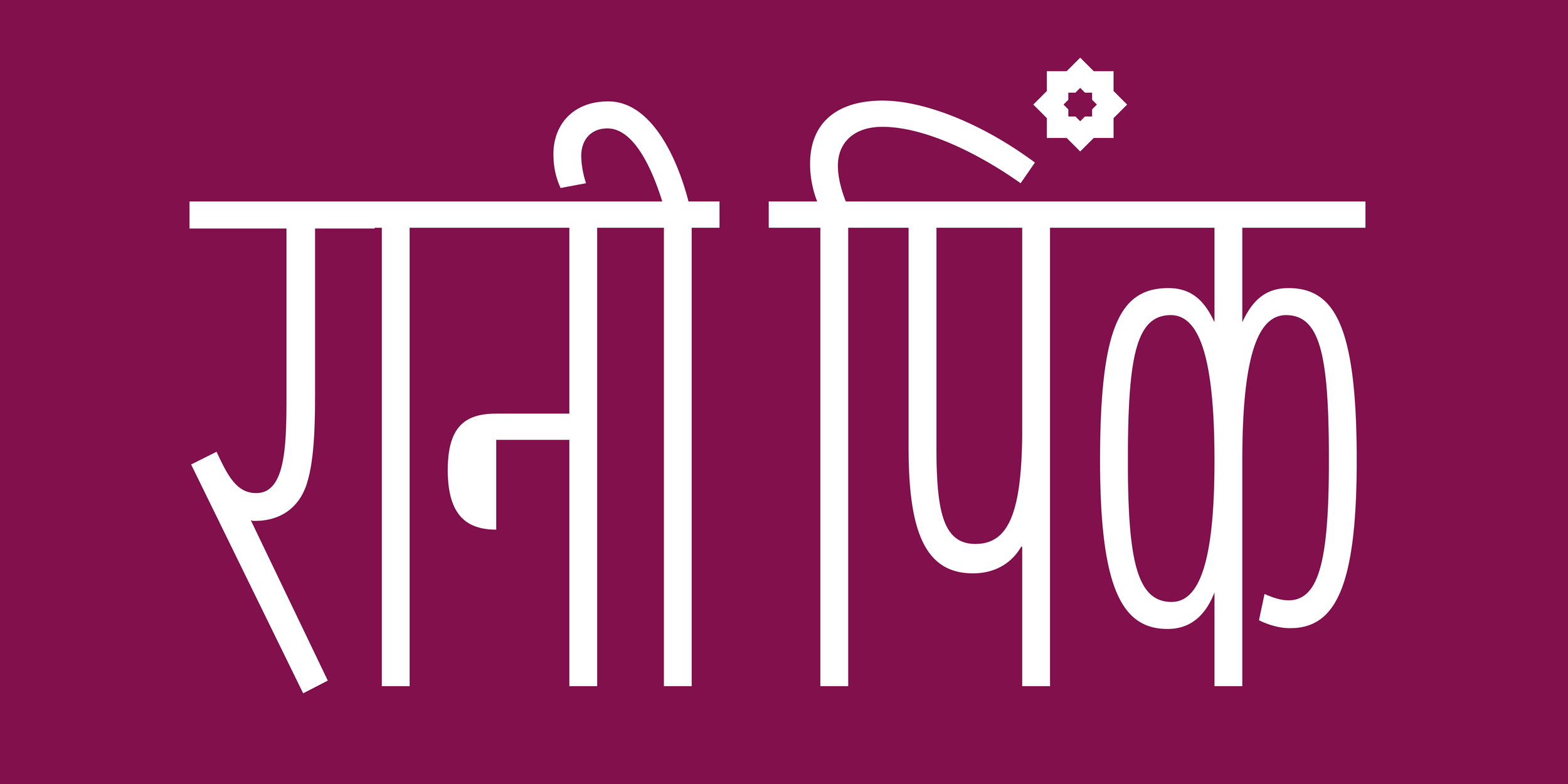
Rani Pink
Rani Pink Love and Gifting are a sought-after studio for customised trousseau and wedding services, and celebration gifts. In 2021, I was commissioned to create a new Devanagari logotype that evoked Old Delhi, sign-painting and lettering from years past.
To create a recognisable visual identity, we agreed on tall, narrow and light letters with small vowel signs and distinctive details, such as the eight-point star in place of the anusvāra. Ideas for a complementary Latin logotype were also explored.
In addition, I lettered a suite of Hindi words and phrases, expected to be used in an upcoming campaign, in the same style as the proposed wordmark.